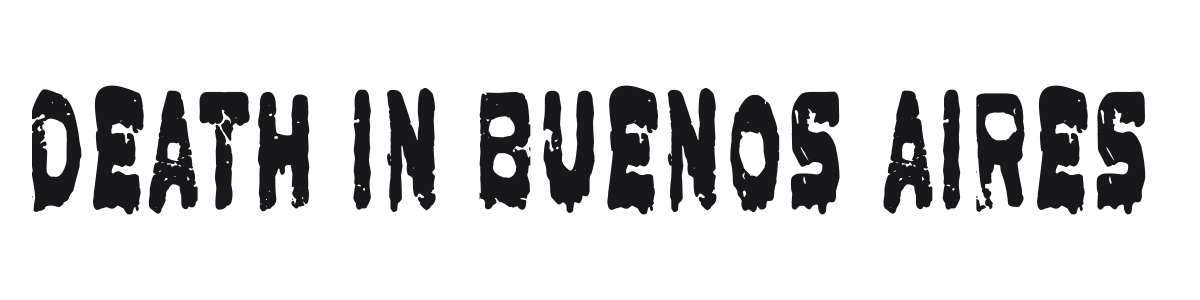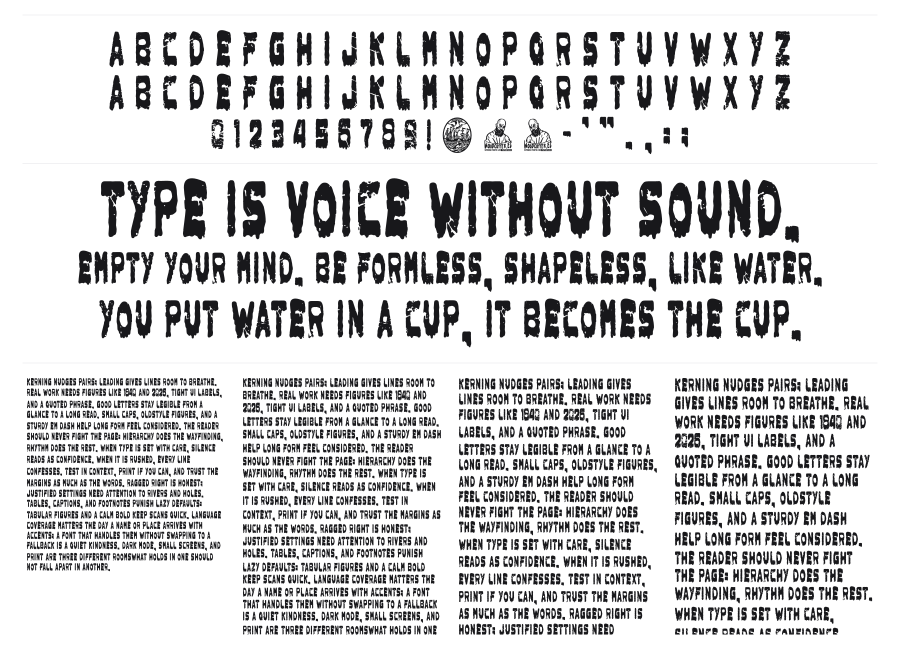
Death in Buenos Aires
Death in Buenos Aires is a heavy distressed display font by Woodcutter that looks like letters left to rot. The thick strokes drip and erode at every edge, somewhere between melting wax and decomposing flesh. It carries genuine menace without resorting to cliché horror tropes.